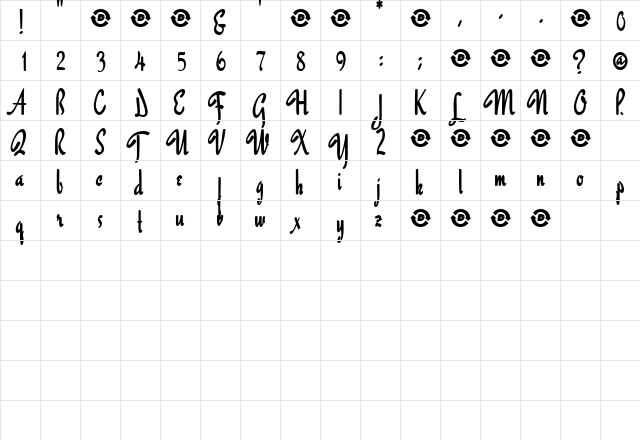
Kate Regular
Design Context for Kate Typeface
Kate is a composed and adaptable typeface that performs quietly and consistently across a wide range of design contexts.